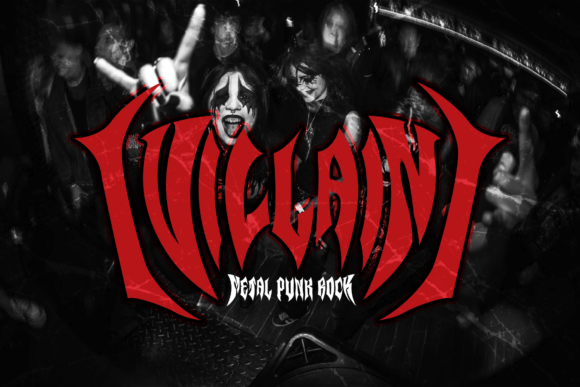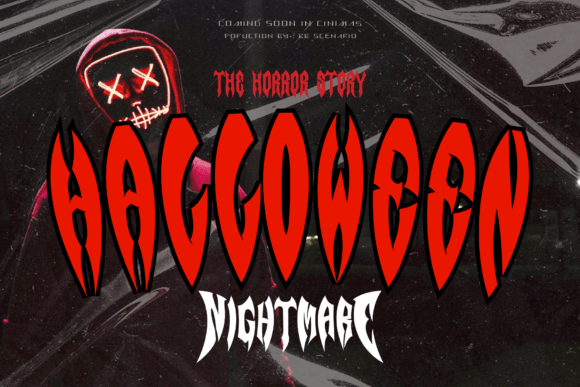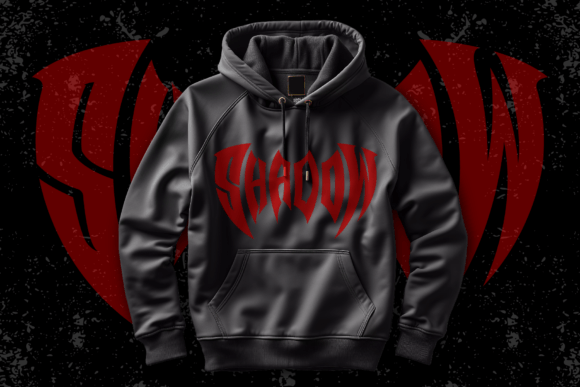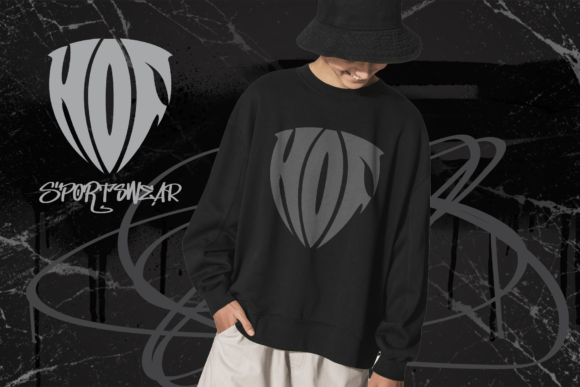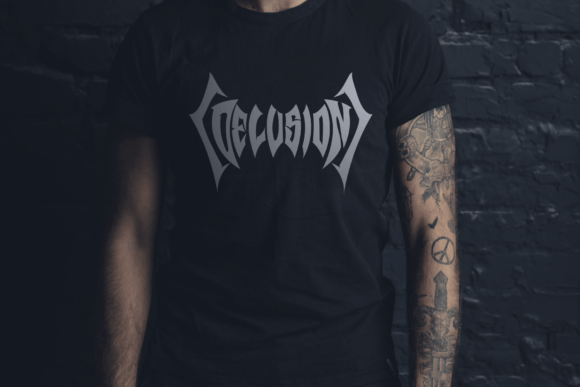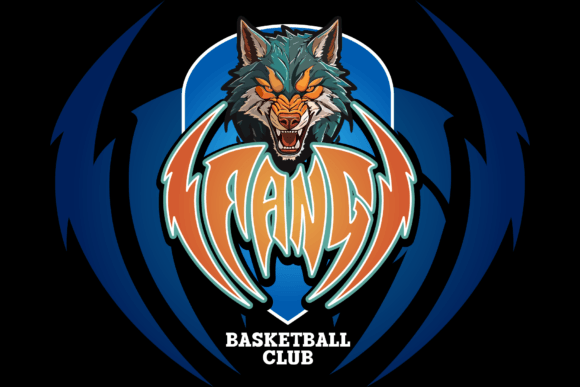
Unleashing the Power of Fang: The Ultimate Heavy Metal Font
I’ll never forget the time I was working on a heavy metal band’s poster design, struggling to find the perfect font that embodied the genre’s raw energy. The client wanted something bold, edgy, and unapologetic. I scoured the internet, tried out numerous fonts, but none seemed to capture the essence of heavy metal. That was until I stumbled upon Fang, a font that would change the game for me and countless designers, crafters, and creative hobbyists out there.
First Impressions: A Personal Review
Fang is more than just a font – it’s an attitude, a statement, and a declaration of your heavy metal spirit. Here’s what I love about it:
- ✨ **Bold and fearless**: Fang’s got an unmistakable presence that commands attention.
- ✅ **Authentic heavy metal feel**: The font’s design elements, from sharp serifs to aggressive lines, scream heavy metal.
- 💥 **High-impact visuals**: Fang’s bold and condensed style makes it perfect for posters, T-shirt graphics, and other eye-catching designs.
While Fang is an incredible font, it’s not without its quirks:
- 🤔 **Limited use in body text**: Due to its bold and condensed nature, Fang might not be the best choice for lengthy paragraphs.
- ⚠️ **Glyph support**: Some users might find the glyph selection limited, but this can be mitigated by exploring OpenType features.
The Backstory Behind Fang
Fang was born out of a passion for heavy metal music and a desire to create a font that embodied its raw energy. The designer, inspired by the likes of Iron Maiden and Black Sabbath, set out to craft a font that would make heavy metal fans proud. Through countless hours of refinement and testing, Fang was finally unleashed upon the world, ready to amplify the design visions of creatives everywhere.
| What makes Fang unique? | Fang’s bold, condensed design and authentic heavy metal feel set it apart from other fonts. |
| Is Fang suitable for body text? | While Fang can be used for short paragraphs, it’s primarily designed for headlines and titles. |
With Fang, you can now amplify your design vision and bring the raw energy of heavy metal to your posters, T-shirt graphics, and more. So go ahead, unleash your creativity, and let Fang help you turn up the volume on your designs!